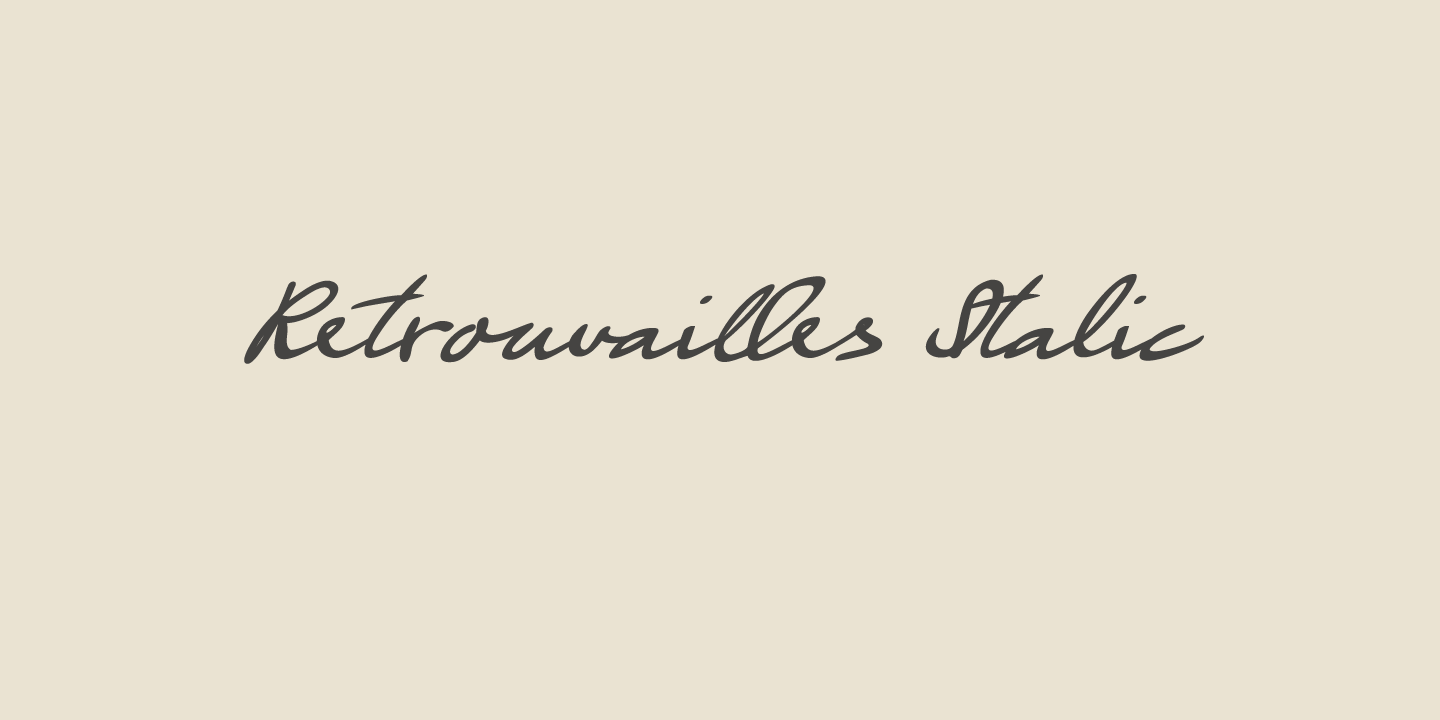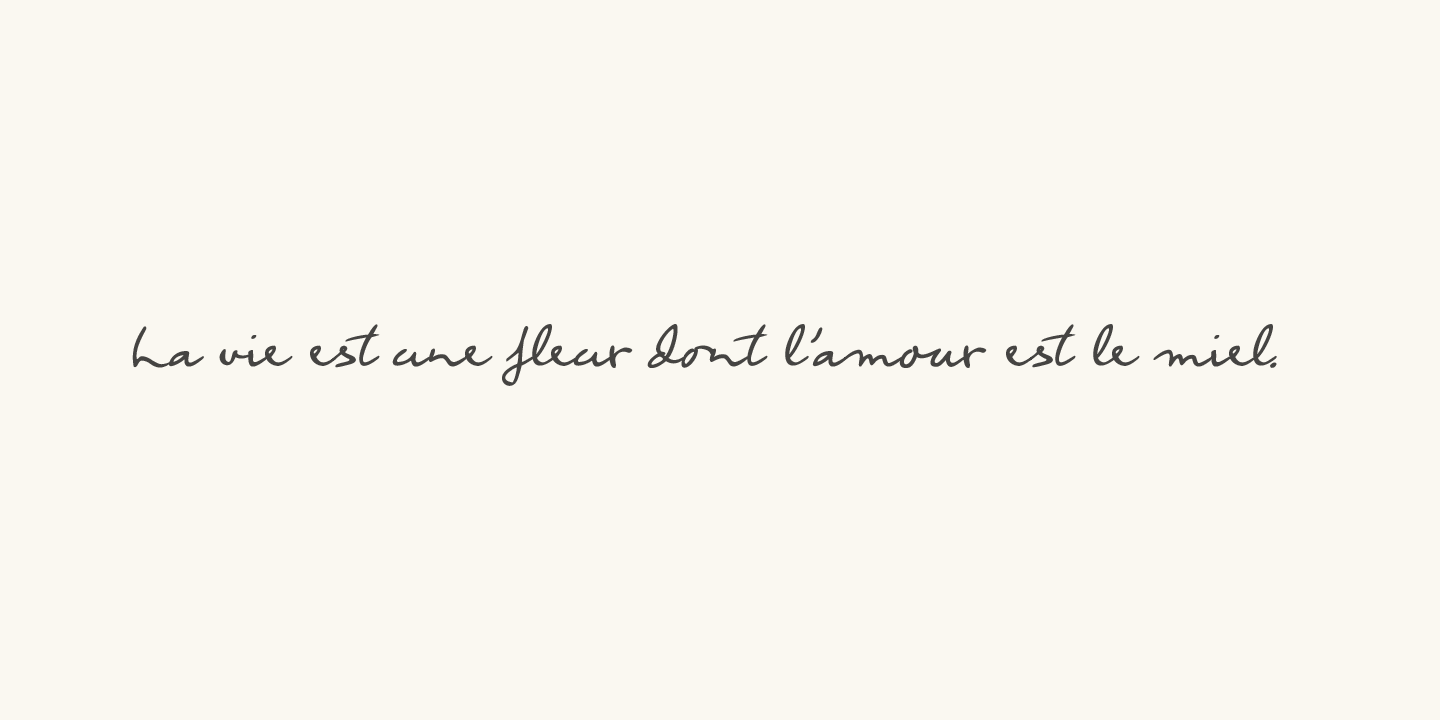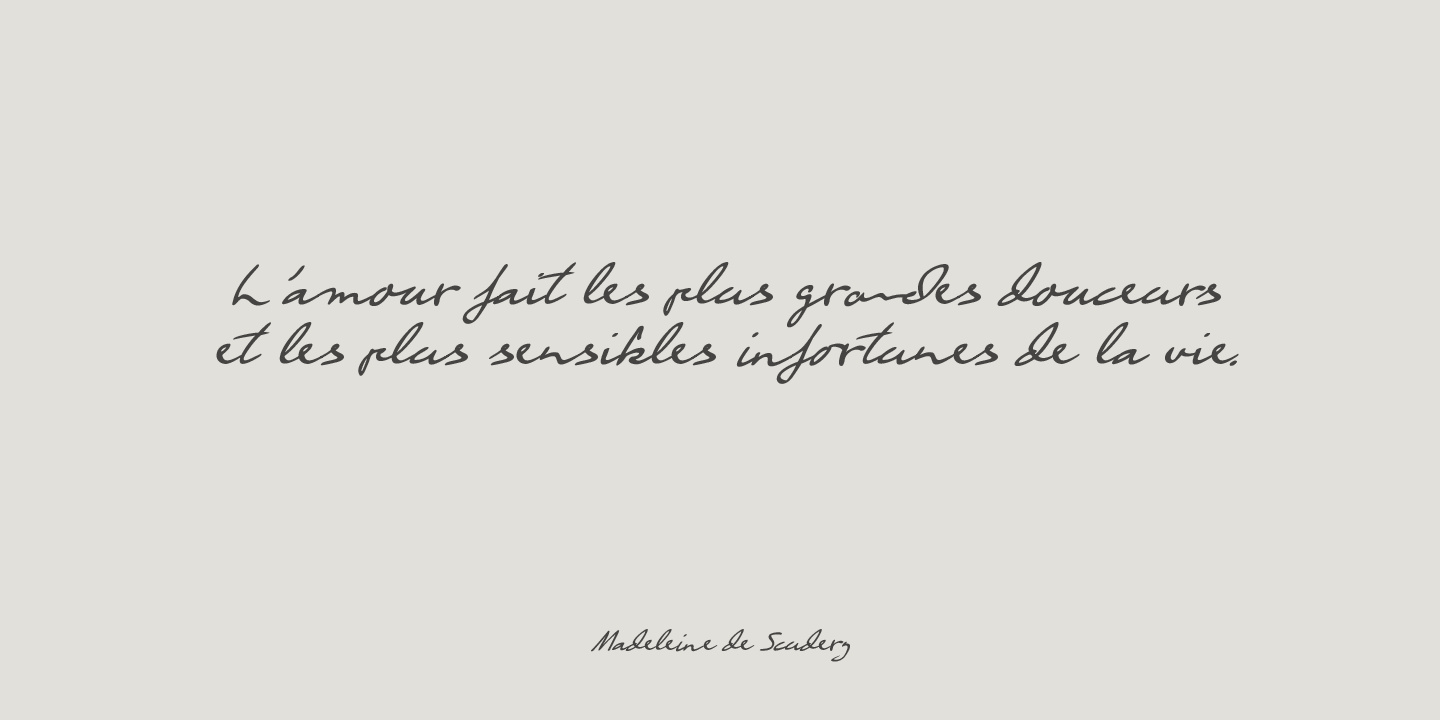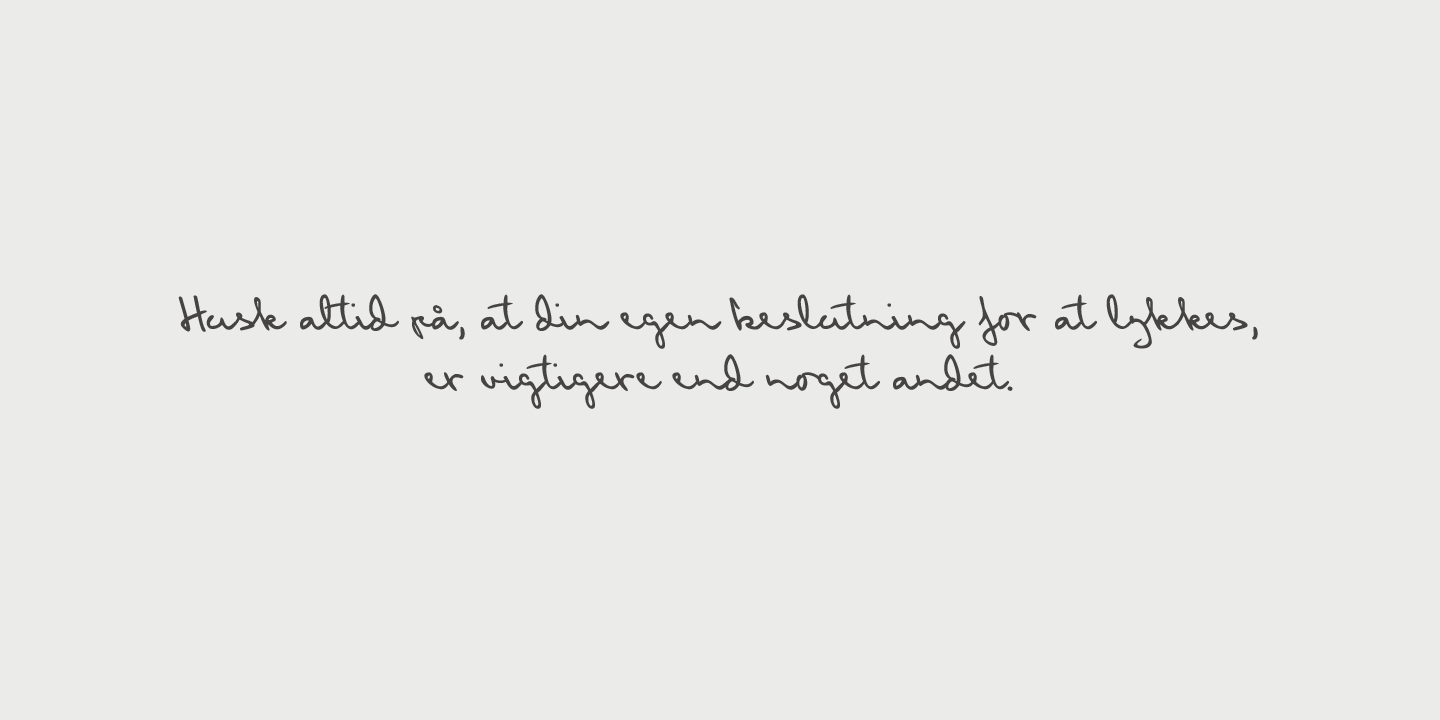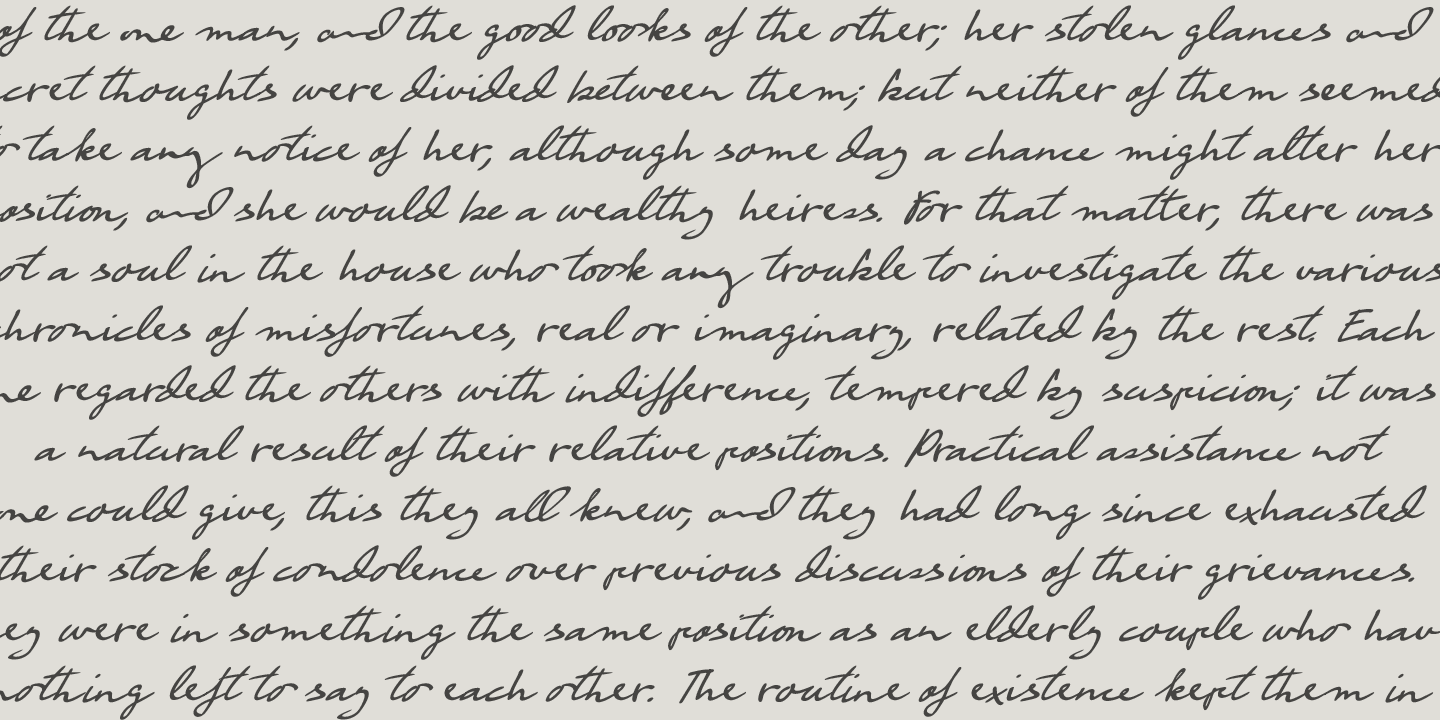
About Retrouvailles
Retrouvailles is a French word, which means \’the feeling one gets after reuniting after a long time?. This script font was based on a couple of handwritten letters and postcards and my own imagination. I used a drawing tablet for the ligatures and the…